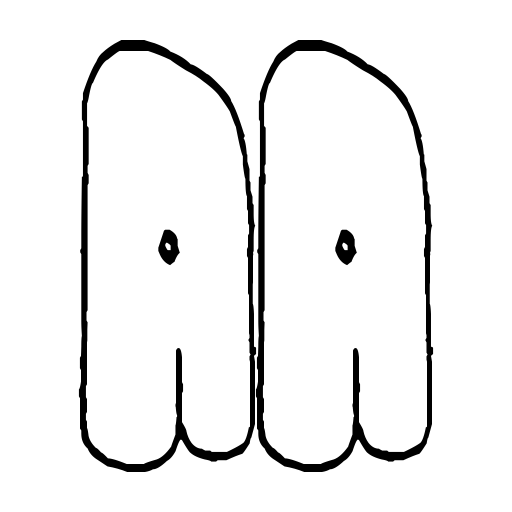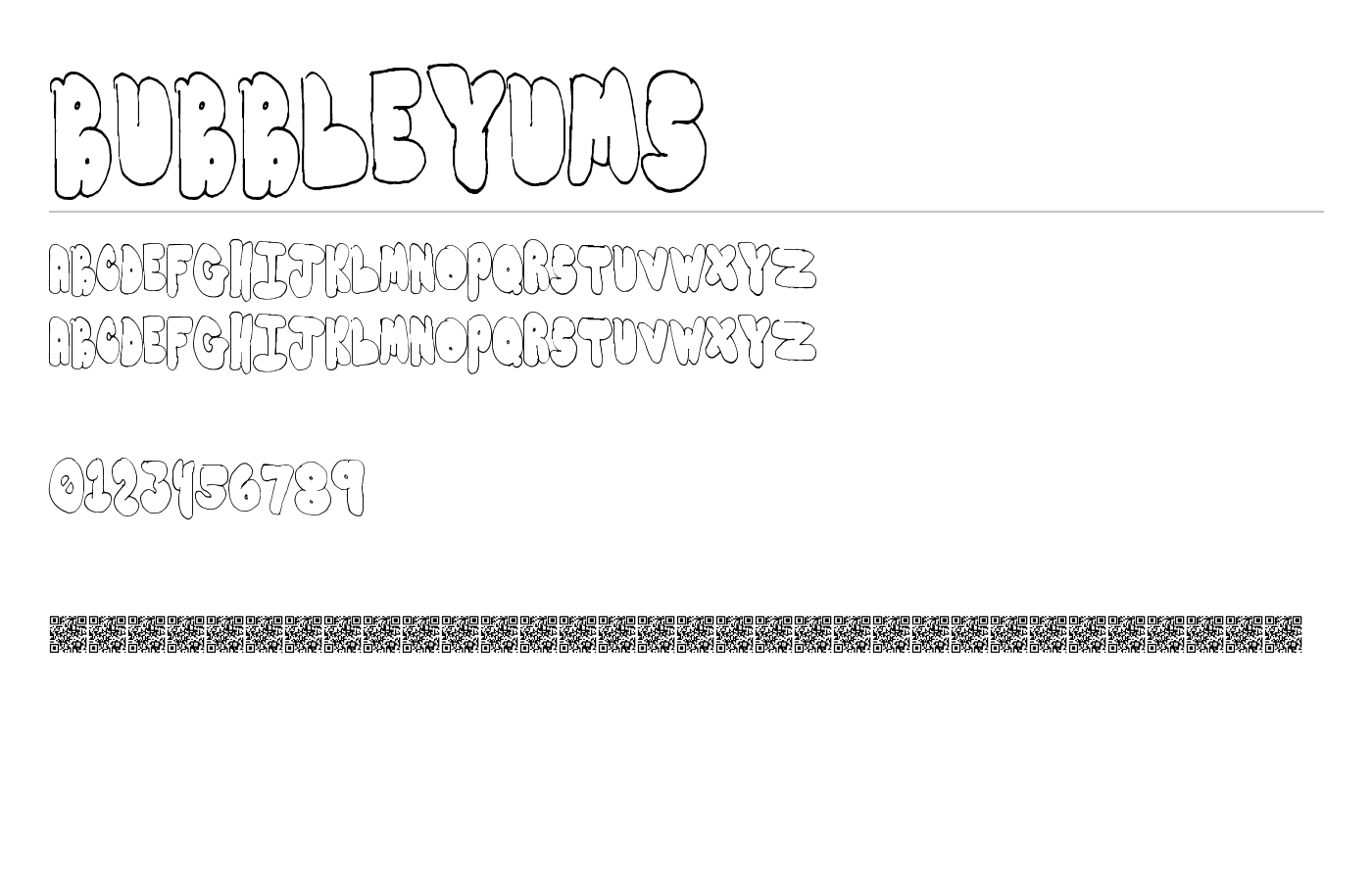
BubbleYums is a playful, bold, and bubbly display font characterized by its rounded, inflated letterforms that convey a fun and whimsical vibe. Its thick, soft strokes and irregular shapes make it perfect for eye-catching headlines, children’s branding, party invitations, and any design seeking a lighthearted, energetic mood. This font works best in creative, casual contexts where a sense of joy and friendliness is key.
BubbleYums Font